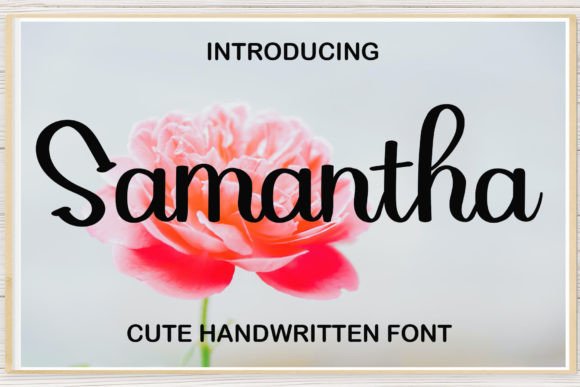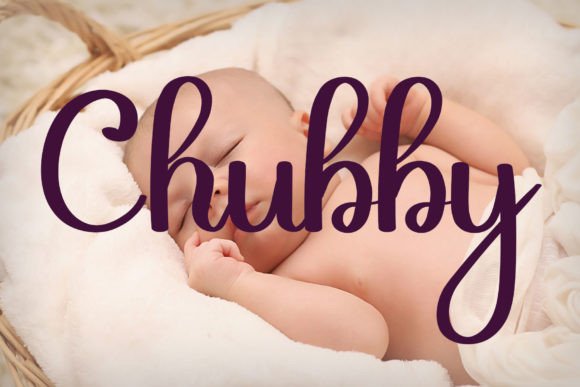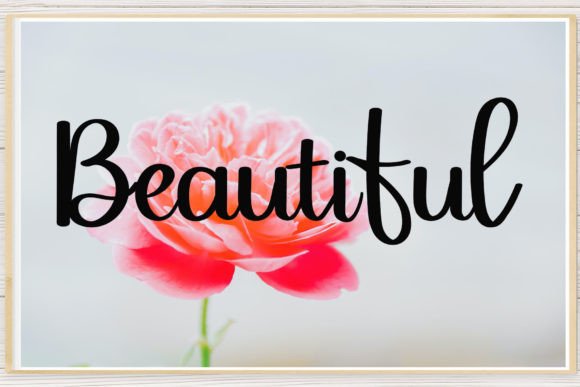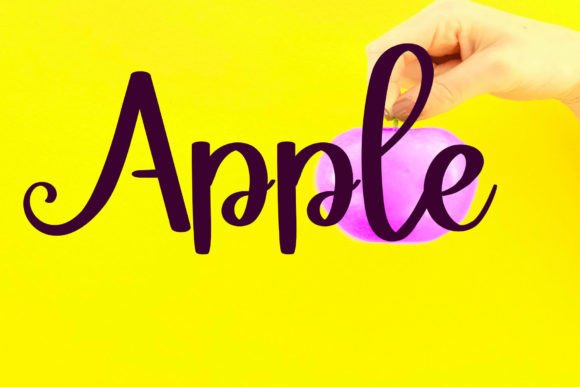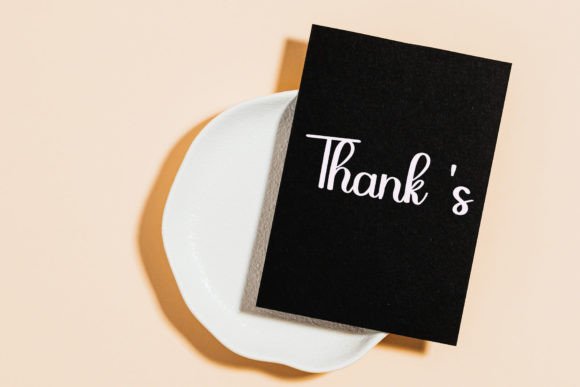
Samantha Font
About Samantha Font
Samantha, characterized by its neat and beautiful handwritten script, exudes an elegant touch that makes it perfect for a myriad of creative projects. Immerse yourself in its incredibly distinct and timeless style, and let it be the cornerstone for the creation of truly spectacular designs.
The neatness of Samantha lends a sense of order and clarity to its script, making it versatile and well-suited for various applications. Its inherent beauty lies not only in its aesthetic appeal but also in the balance it strikes between sophistication and approachability.
This handwritten font is like an artist’s brush, crafting each letter with a deliberate elegance that captures attention. The distinctiveness of Samantha ensures that your designs stand out, leaving a lasting impression on your audience. Whether used for branding, invitations, or promotional materials, Samantha adds a touch of refinement to your visual creations.
The timeless style of Samantha makes it a font that transcends trends, ensuring its relevance across different design landscapes and projects. As you fall in love with its graceful curves and carefully crafted details, you’ll find that Samantha becomes a reliable companion for expressing your creative vision.
Picture Samantha enhancing wedding invitations with its graceful script, setting the tone for a celebration of love. Envision it on branding materials, adding an elegant and personal touch to your business identity. Whether employed in digital or print media, Samantha’s beauty shines through, creating a harmonious blend of aesthetics and functionality.
As you delve into the realm of design with Samantha, you’ll discover its versatility in bringing an added layer of charm to any project. Let it be the conduit through which your creativity flows, turning ordinary designs into visually spectacular works of art. With Samantha, each stroke of the pen becomes a statement, each curve a testament to the power of elegant simplicity.
Embrace Samantha as your creative ally, and witness how its neat and beautiful handwritten charm transforms your favorite projects into masterpieces. Whether you are a graphic designer, a business owner, or an individual with a passion for design, Samantha invites you to infuse your creations with a touch of timeless elegance and undeniable beauty.